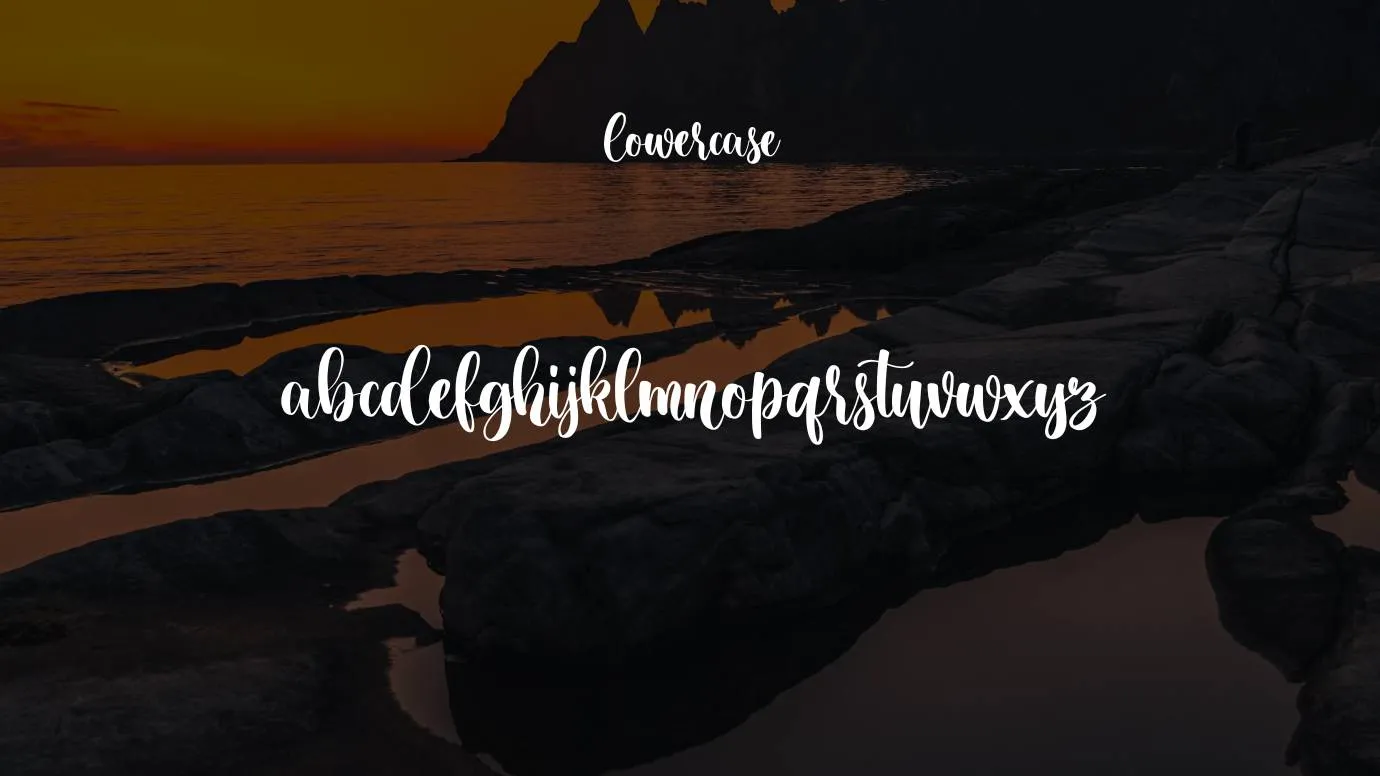
Miracle Day Font is a bold script font that comes in an elegant look typeface. This font family was designed by Bangkit Tri Setiadi. It comes with stylish glyphs along with 1024 units per em. This texture has a lot of features that are available in its free version with stylistic alternates. This typeface has various styles including bold, regular, thin, and Italic.
It has a bold structure that you can choose for personal design purposes. The designer can make it pair with a buttercup font. This playful font has an incredible look and gorgeous shape glyphs. You can create graphic design very accurately and quickly by using its text generator tool facility.
Advanced Key Features
This classic calligraphy includes unique and attractive swashes and ligatures. Its thin and long swashes make it effective for calligraphic designs. Both of these make this font family more versatile.
This staggering font family includes more than 180 characters including uppercase letters, lowercase letters, and some special characters. This font family has an attractive look and eye-catching typeface swashes that why it is popular in the design market.
Miracle Day Font Family (Includes 04 Typeface)
This typography includes the total of font styles in its family fonts. These family fonts are mentioned below.
- Miracle Day Regular
- Miracle Day Bold
- Miracle Day Italic
- Miracle Day Thin
These styles increase the worth of this font family. The bold style is darker and thicker. While the regular style is simple. This thin style is perfect for small designs and italic style is perfect for decorative designs.
Font Information
Name | Miracle Day Font |
Type | Script |
Designer | Bangkit Tri Setiadi |
Efficient Uses of Miracle Day Font
You can utilize this font for various types of flyer designs, banner designs, wall murals, animated logos, graphic designs, and greeting card designs. This font family has decorative design purposes and printing text design projects. You can pick this font for home decor and brochure layout design purposes.
This font is suitable for bold script text designs, social media post designs, and wedding invites card designs purposes. It is also great for banners, posters, document designs, articles, and general reports design by making the combination of this script font with other similar fonts like ananda font.
You can also use this font in the development methods of different software, blog pages, and e-commerce store design purposes. It is also great for use in template designs, header designs, comic book covers, and so on related design purposes. This unique lettering font is also suitable for high-quality graphic design purposes.
Similar Fonts to Miracle Day Font
This typeface is well suitable for making pairing with different scripts and handwritten typefaces. You can also make pair this typeface with Margarita Font and enjoy its classic results.
Also, this typography is effective for making pairing with Amsterdam Font, Ginga Font, and Bullet to Font. After making pairing with complementary fonts you will notice more classic and extraordinary results.
Bangkit Tri Setiadi is the main designer of this font family and it comes in the script font family.
Which is the best alternative to Miracle Day Font?
Hello valentica font is the perfect alternative to this amazing typeface that comes in the script font family.